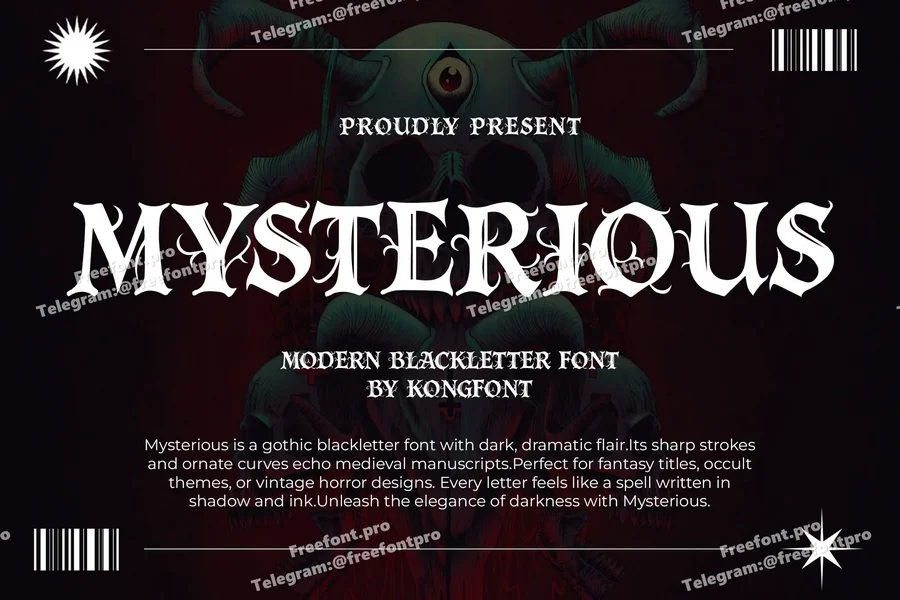
Mysterious – Modern Blackletter Font
Mysterious is a modern blackletter font that blends traditional Gothic aesthetics with a fresh, contemporary twist. Its sharp strokes, bold presence, and unique letterforms make it perfect for logos, posters, album covers, tattoo designs, and any project that craves intensity and edge.
Whether you’re designing for dark-themed branding or eye-catching merchandise, Mysterious delivers a striking visual impact that commands attention with elegance and mystique.